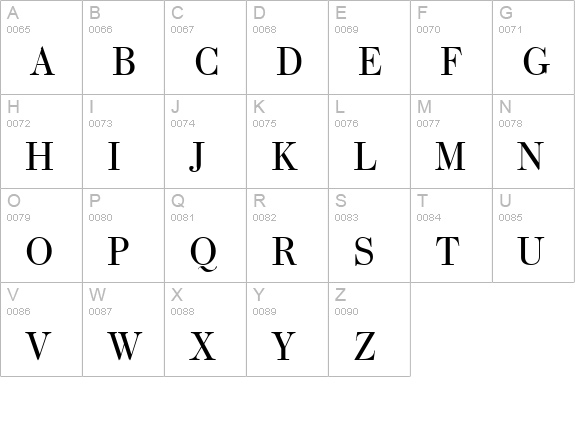
Quantas Light Regular is a refined, elegant variant in the Quantas typeface family \xE2\x80\x94 well suited to elegant body text, refined sub-headings, and luxury branding.
Introducing Quantas Light Regular font, a stunning typeface designed to bring a touch of elegance and sophistication to your projects. With its sleek and modern design, this font is perfect for both professional and creative endeavors. Quantas Light Regular offers a harmonious balance between legibility and aesthetics, making it a versatile choice for a wide range of design applications. Whether you're creating a logo, designing a website, or crafting a captivating poster, this font will effortlessly elevate your work to new heights. What sets Quantas Light Regular apart is not only its impeccable design but also its accessibility. This font is freely available to download at FontsMarket.com, allowing you to enhance your projects without breaking the bank. With this font in your toolkit, you can create stunning visuals without compromising on quality or budget. The clean lines and refined curves of Quantas Light Regular make it a breeze to read, ensuring that your message comes across loud and clear. Its versatility extends to various design styles, from minimalistic to bold and eye-catching. The carefully crafted letterforms give your text a polished and professional appearance, making it ideal for corporate branding, presentations, and more. Adding an air of sophistication to your projects has never been easier with Quantas Light Regular. Its timeless appeal and effortless charm will captivate your audience and leave a lasting impression. Download it for free at FontsMarket.com today and unlock a world of design possibilities.